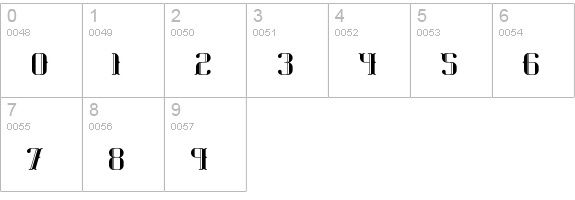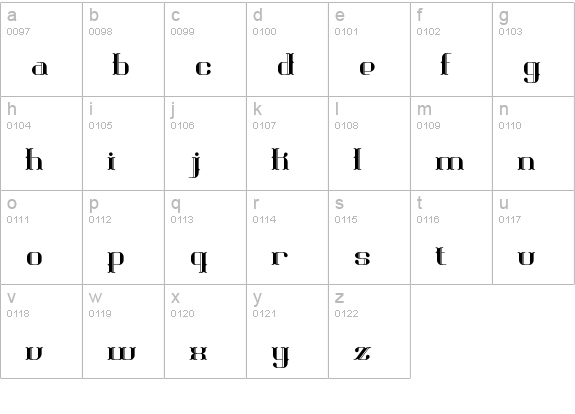
Blackoninaut BRK Font Details
Blackoninaut BRK font is a bold and modern typeface that exudes sophistication and style. With its clean lines and strong presence, this font is perfect for a variety of design projects, from branding to editorial layouts. The sleek and elegant design of Blackoninaut BRK font makes it a versatile choice for both digital and print applications. The best part? Blackoninaut BRK font is available for free download at FontsMarket.com. Whether you're a graphic designer looking to add a fresh touch to your projects or a business owner in need of a distinctive font for your branding materials, Blackoninaut BRK font is sure to make a statement. Download it today and elevate your designs with this stunning and impactful typeface.